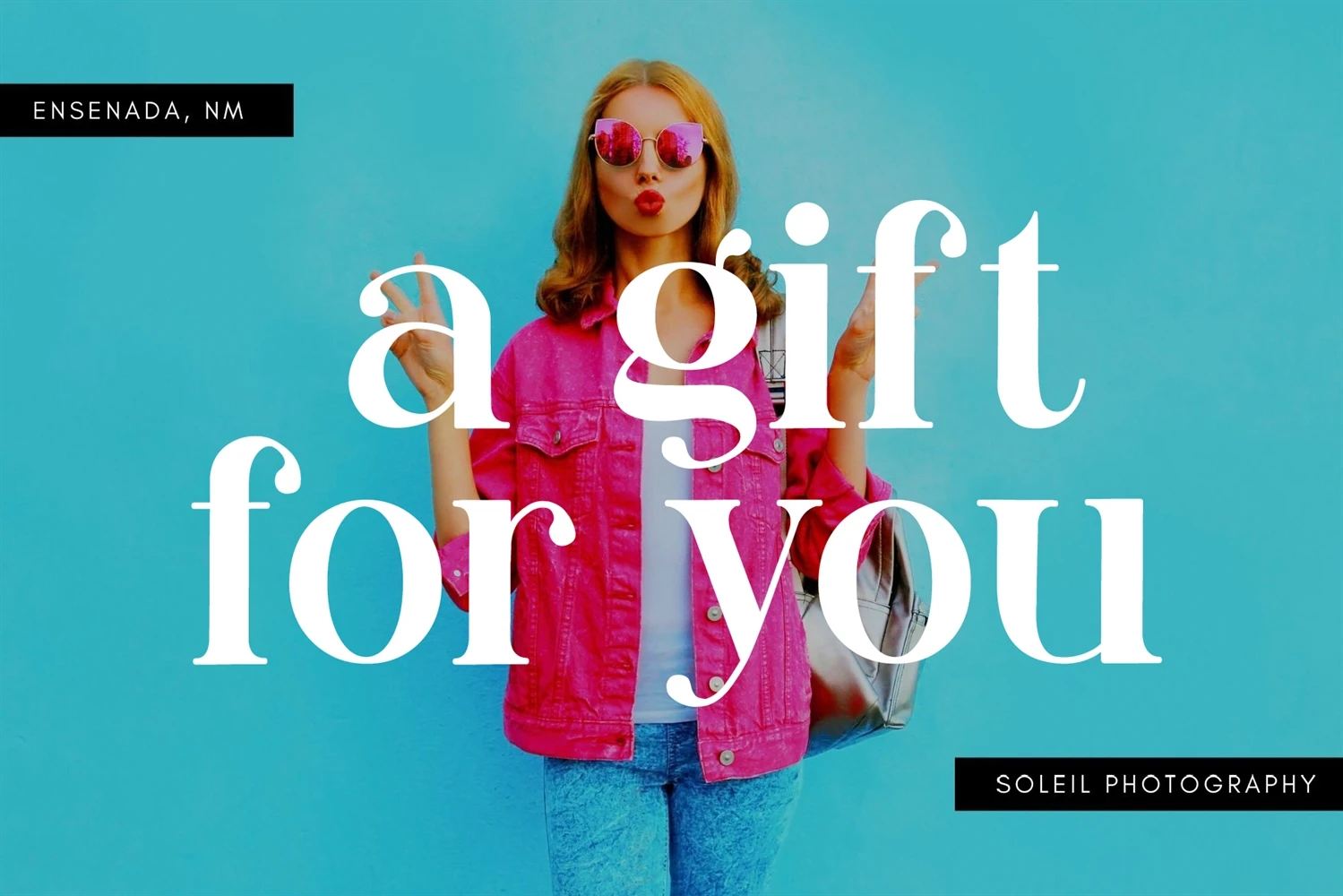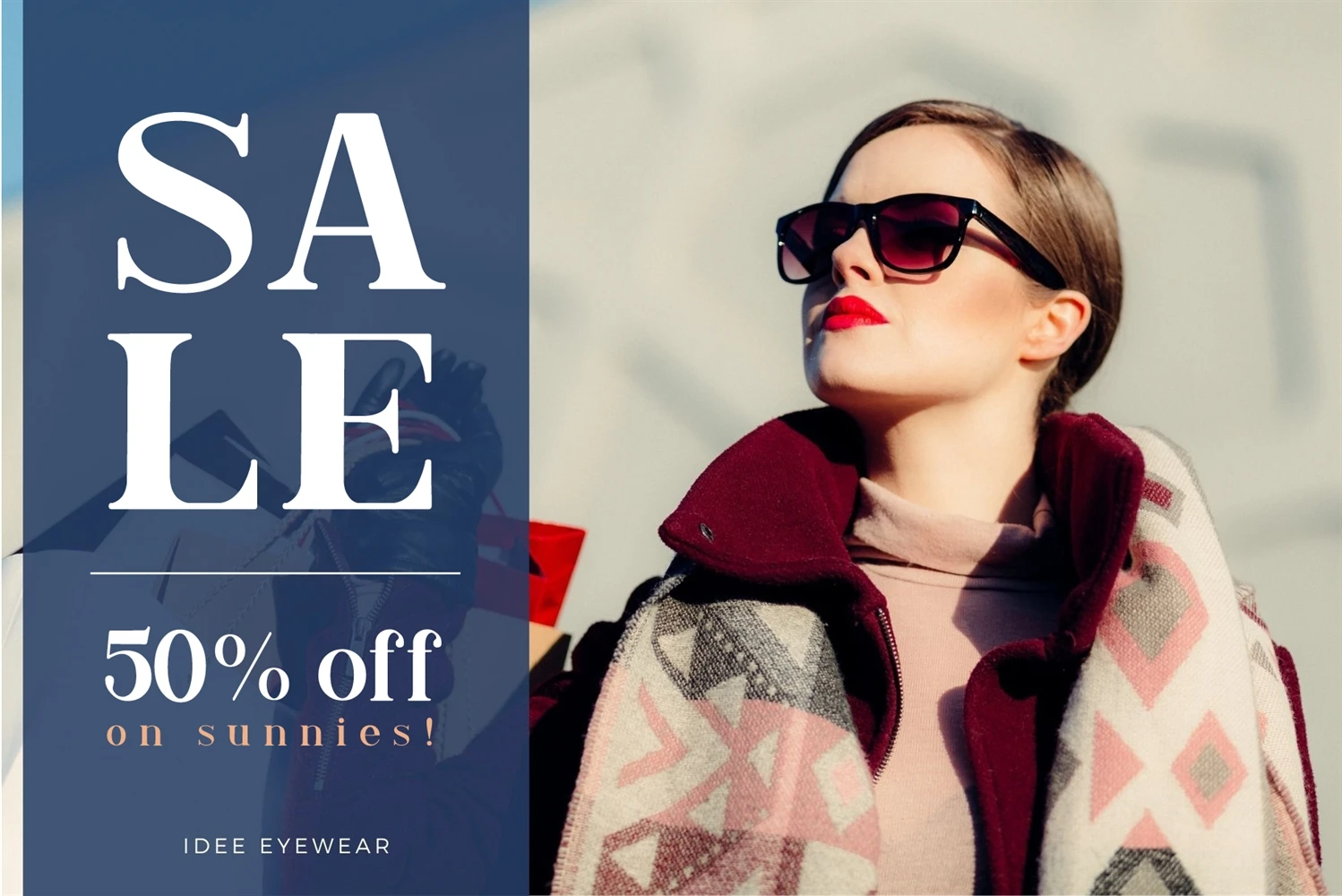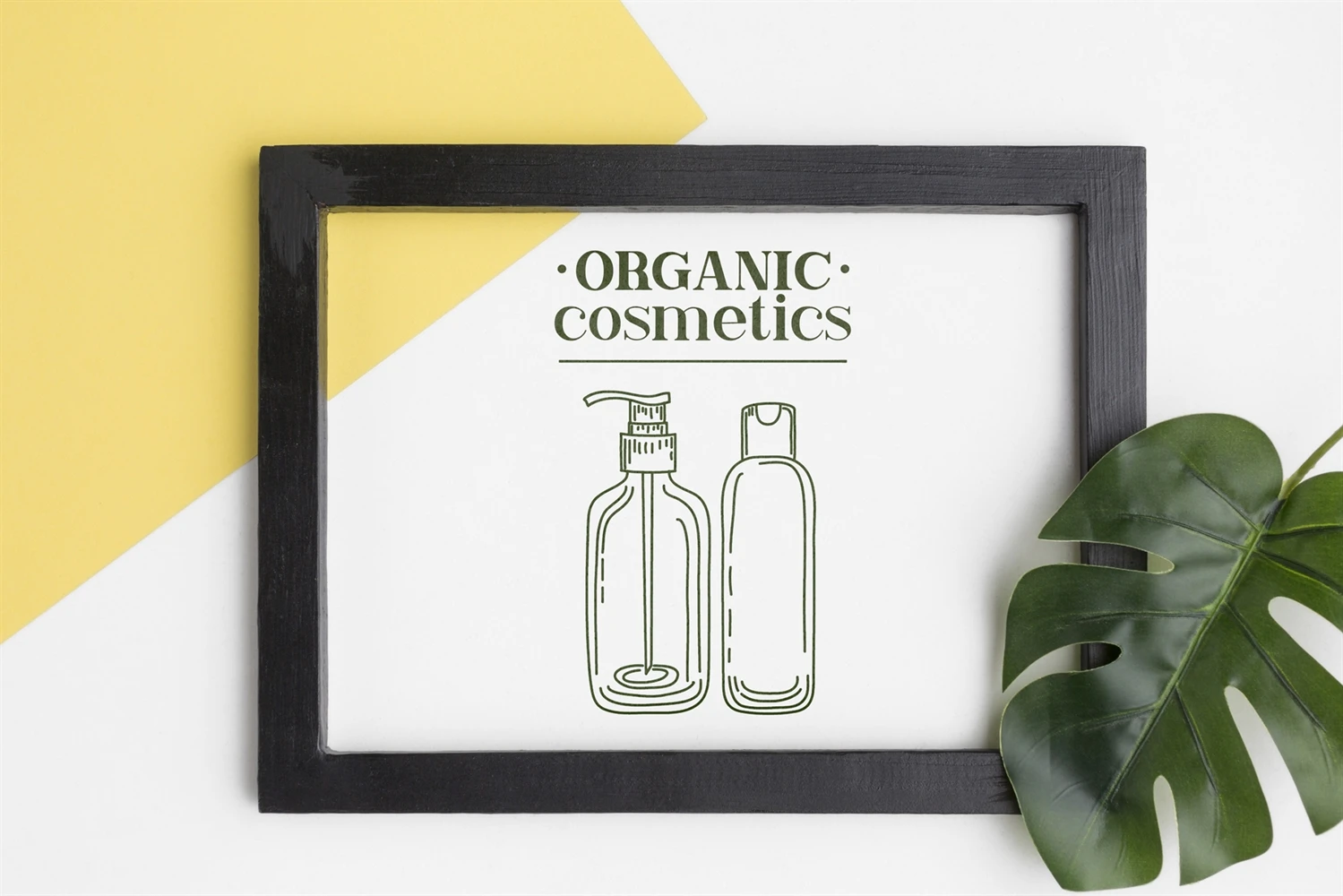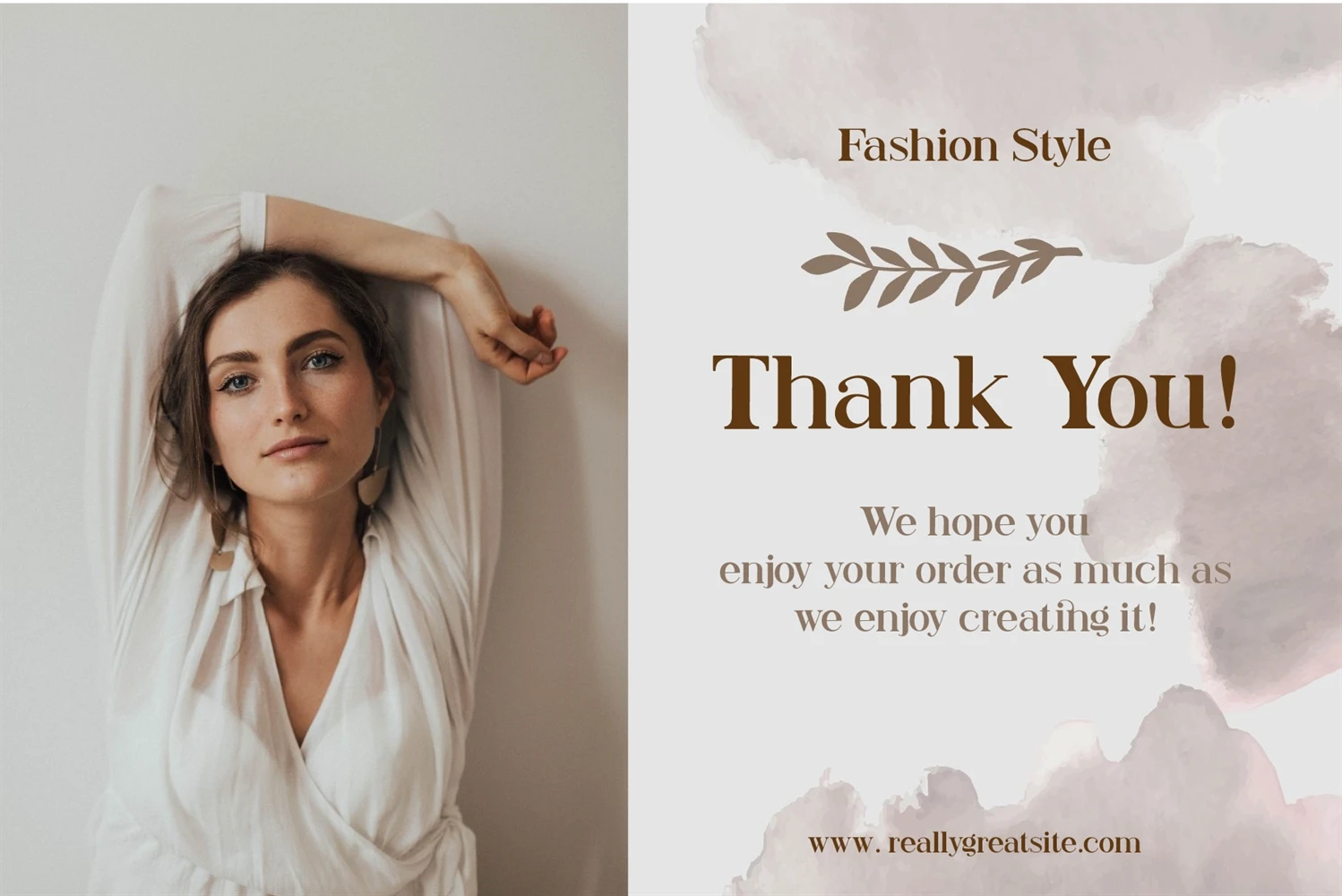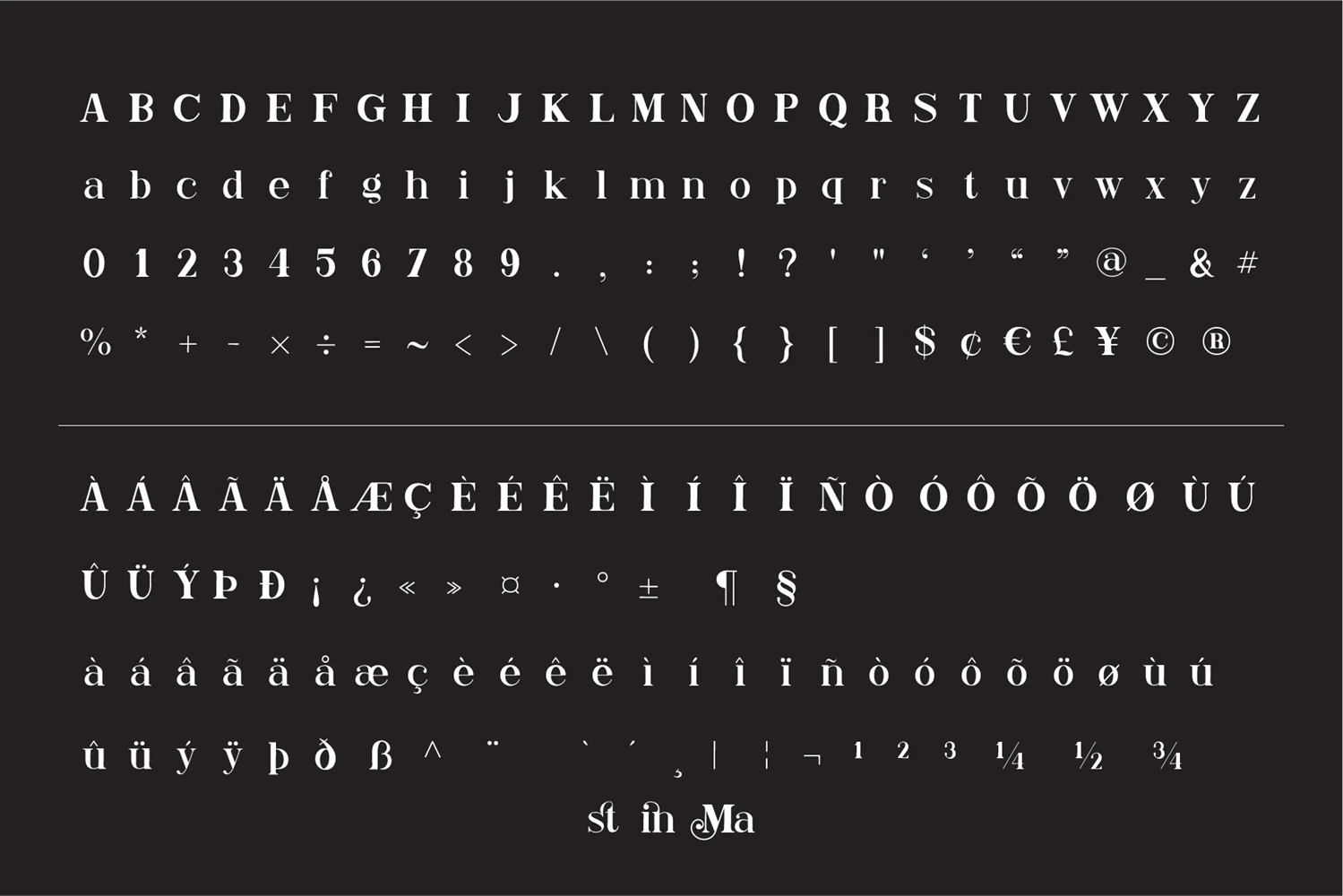
Magazine Font is designed to be versatile. Compatible with both modern and vintage design styles. You can use it for various projects, such as blog posts, logos, branding, ads, invitations, greeting cards, planners, photo albums, decorations, and much more. This font is PUA encoded which means you can access all of the glyphs and swashes with ease!